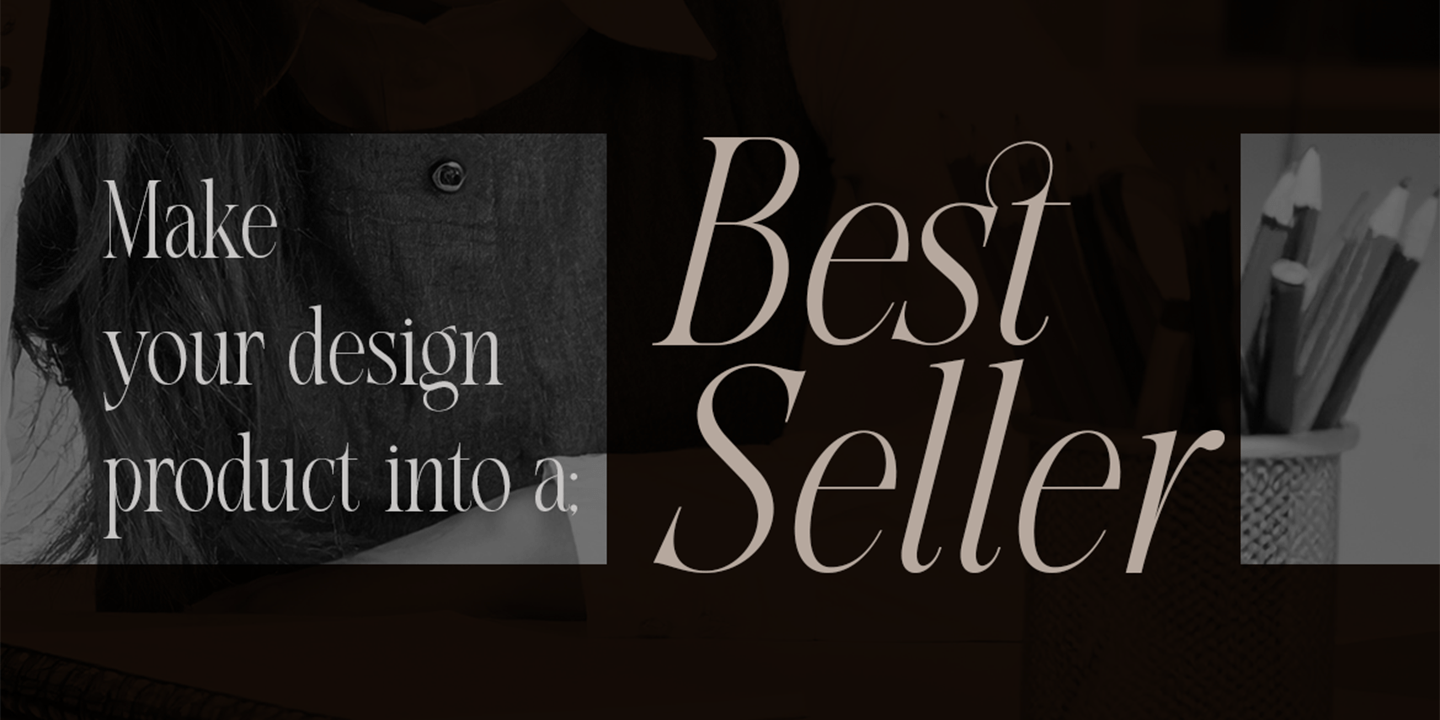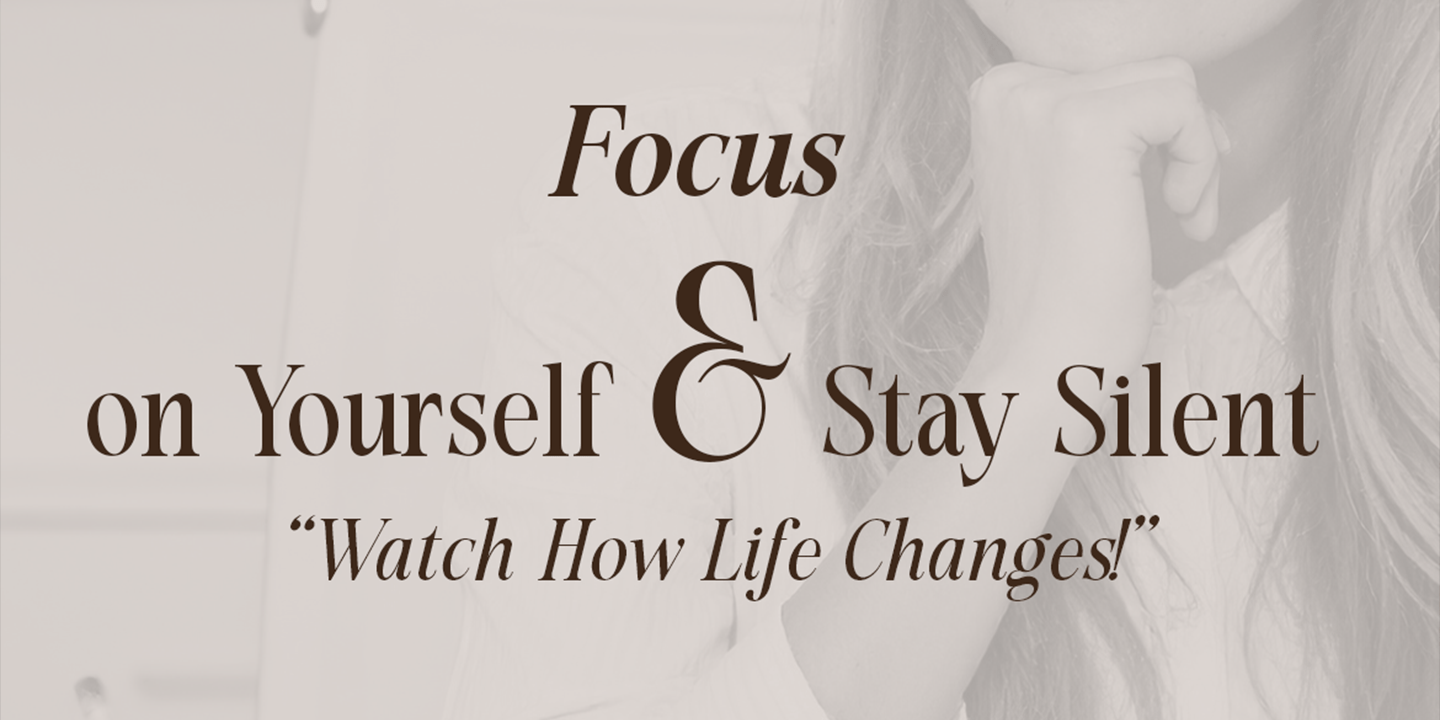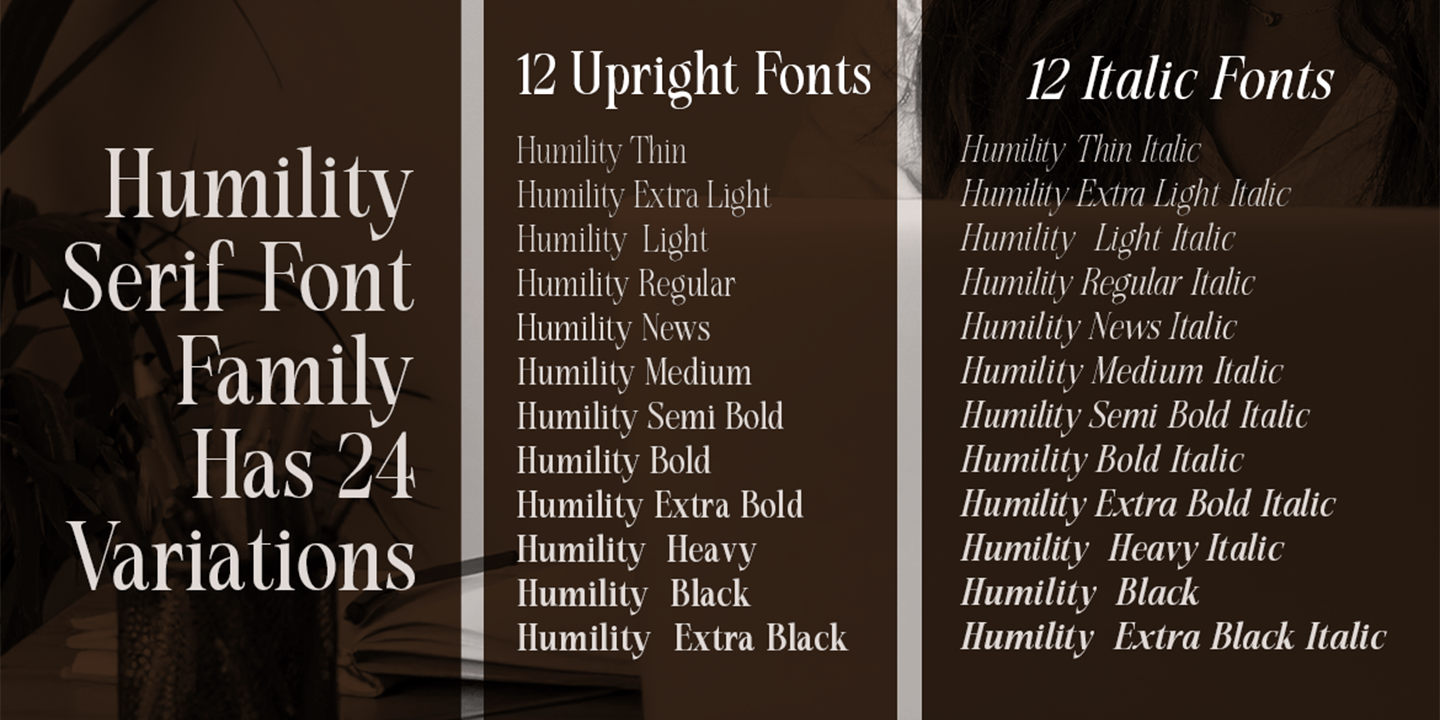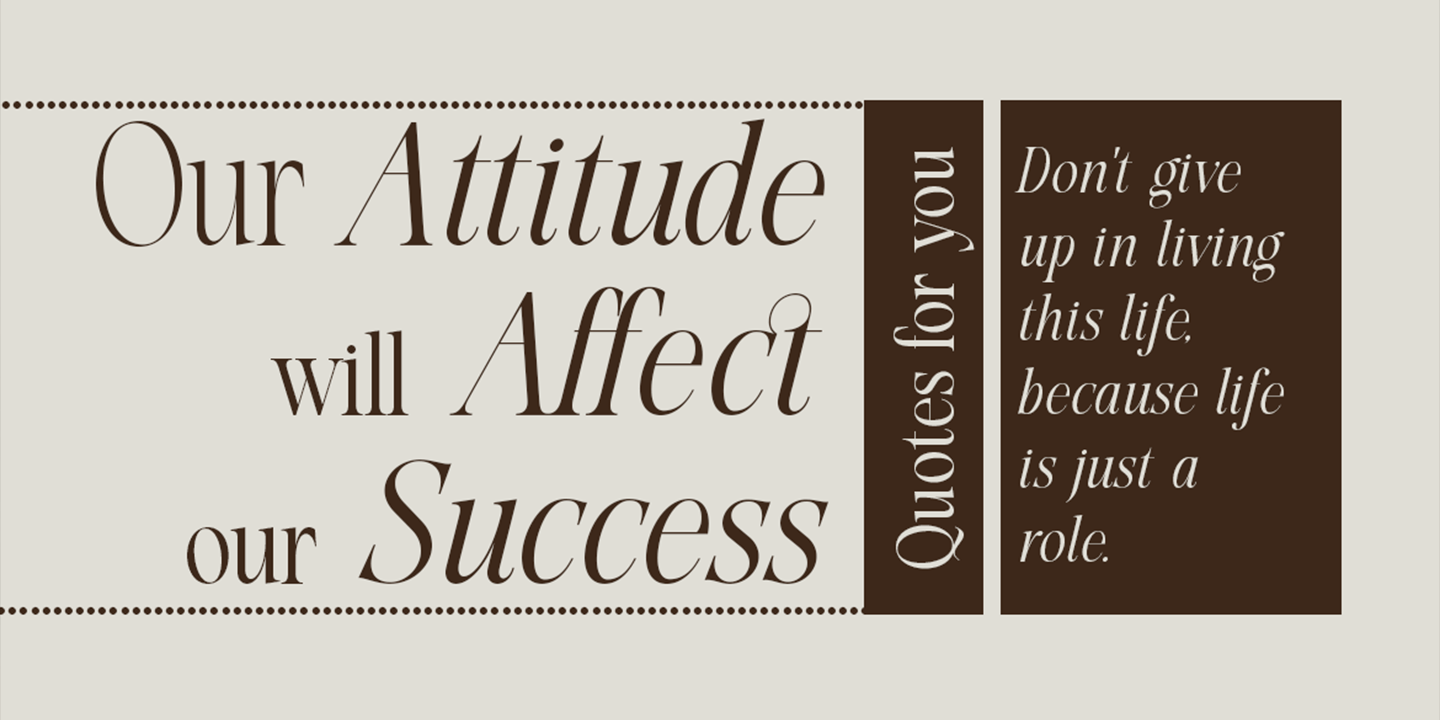
Humility
Humility is a slim serif font with sharp characters and looks very charming, because Humility we created a classic but elegant serif style.
Humility has a perfect balance between the familiar and the unexpected. With Humility, designers can use this font for various needs in creating elegant design work.
please note, Humility is a bold and expressive serif family font that adorns the pages of top fashion magazines and publications in print media and web pages. Humility flows with vintage charm that supports contemporary design.
Humility is a variation of letters with a slim style ranging from thin to thick. Humility comes in 24 variations, including; 12 Regular upright fonts; 12 regular italic fonts.
This letter looks amazing in logos, magazines, and films. This letter will be perfect for branding, headlines, captions, paragraphs, and posters. Various thicknesses allow you to experiment with various applications. This letter is made to give an impression without sacrificing its beauty and readability.
The Humility font family includes 422 glyphs.